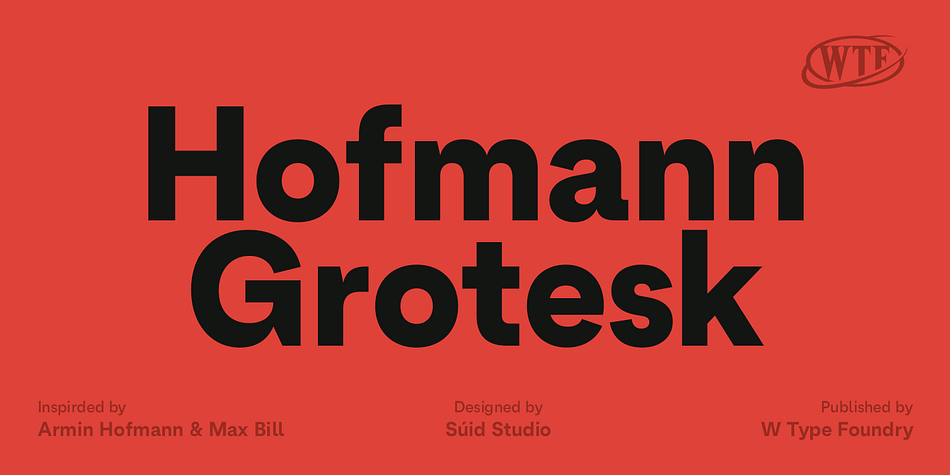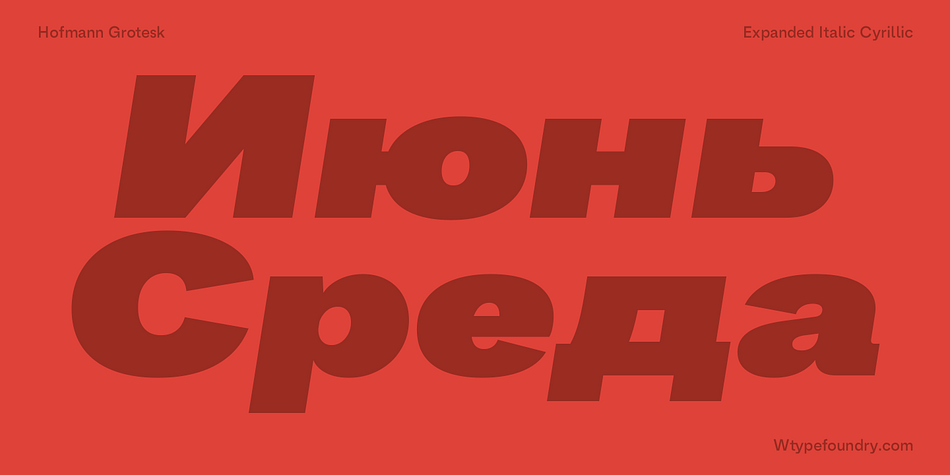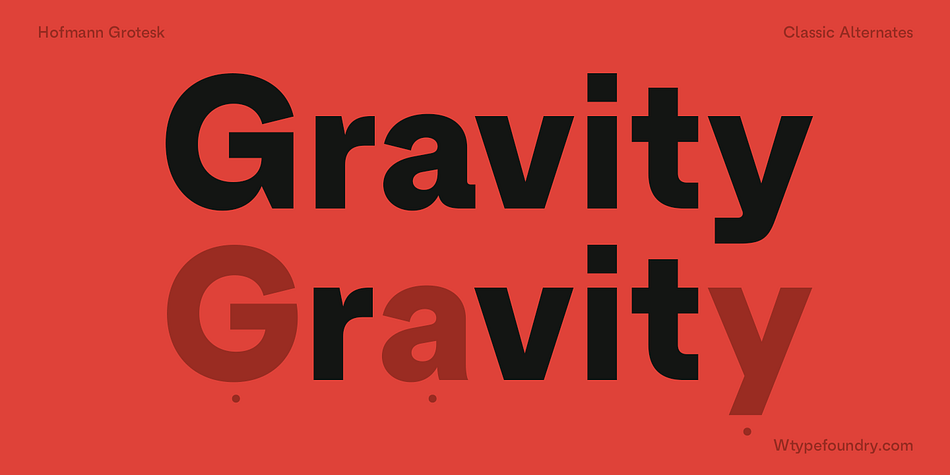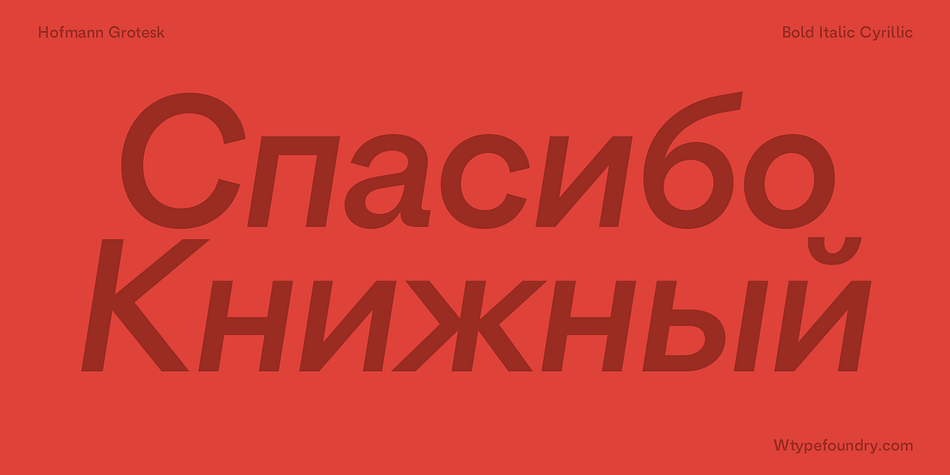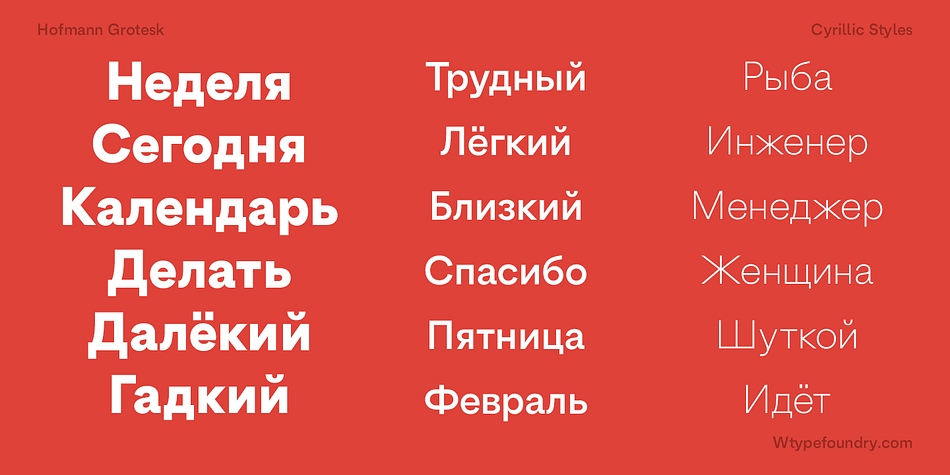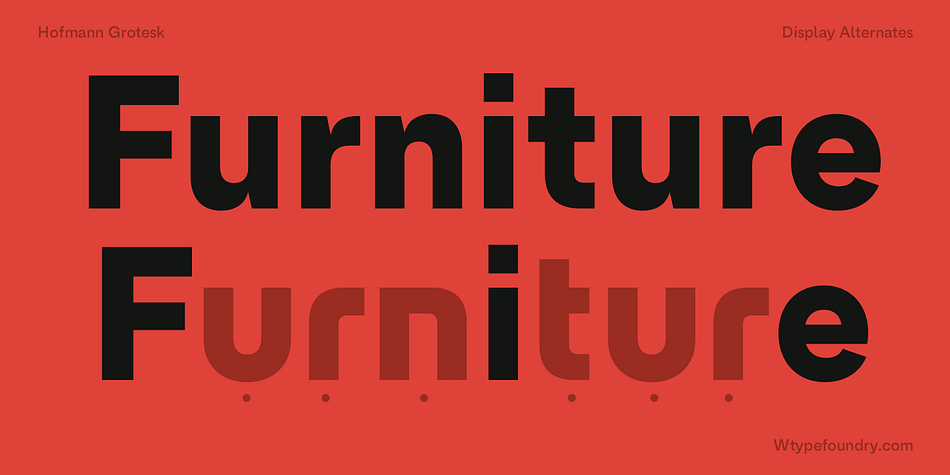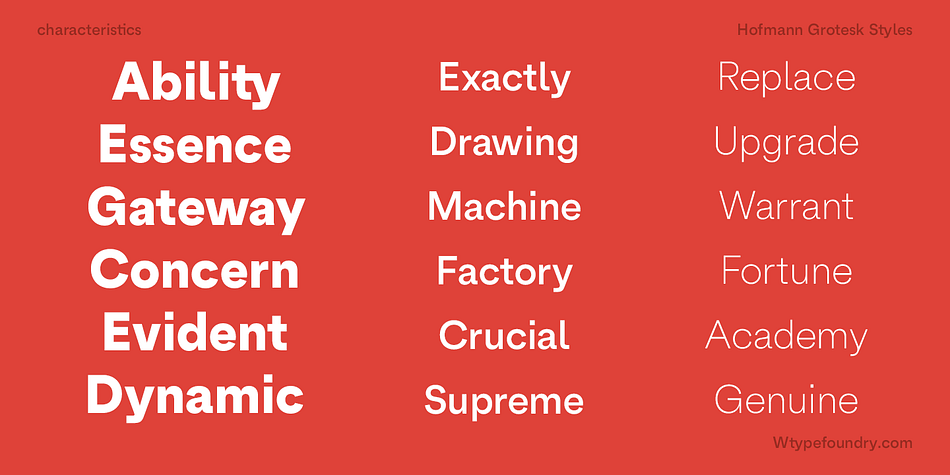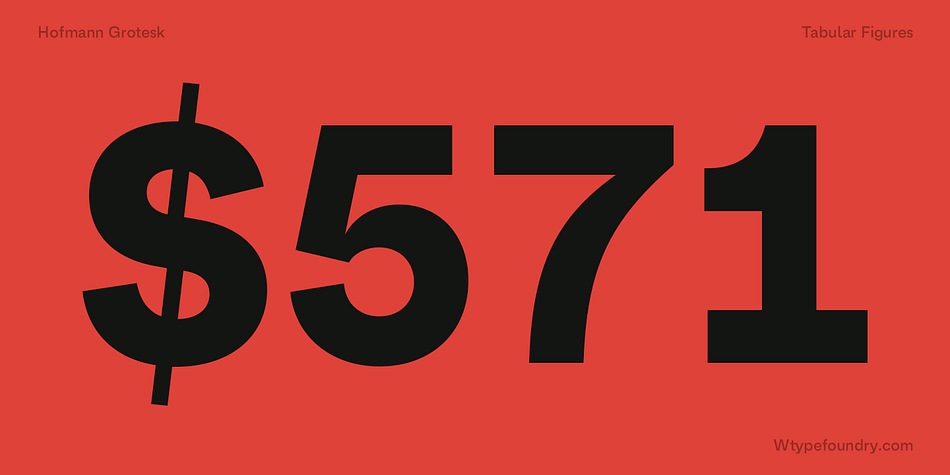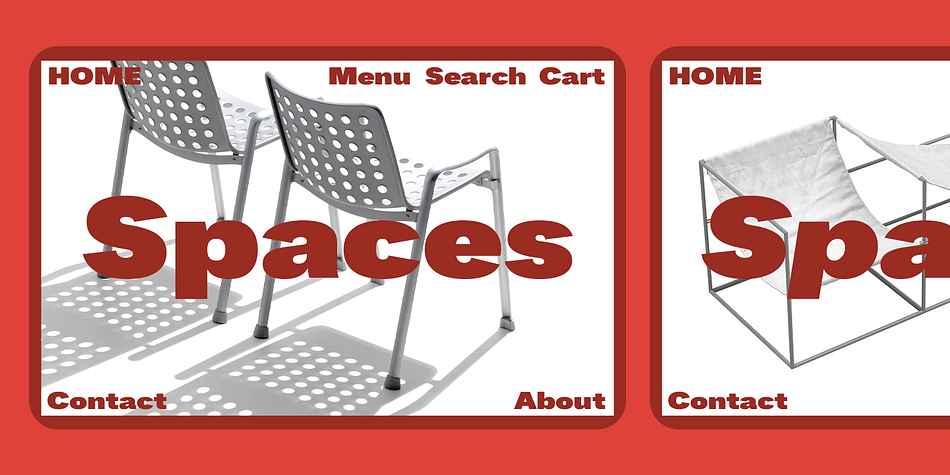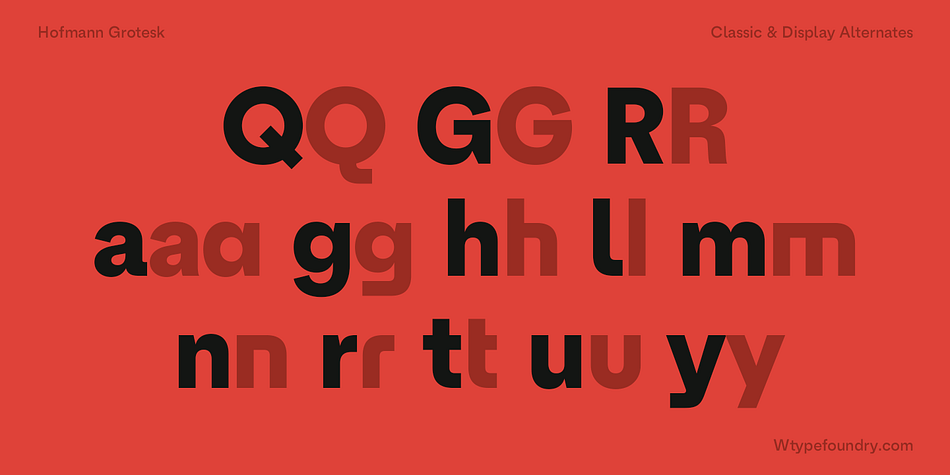
Hofmann Grotesk
Designed by David Súid, Hofmann Grotesk is a sans serif font family. This typeface has twenty styles and was published by W Type Foundry.
Inspired by Swiss designer Armin Hofmann, this font falls into the grotesque style and is built with three alternative styles. The default style, focused on versatility, is especially useful for medium-length texts and articles, as well as for logos and various types of web applications. In its details, it exhibits its own persona. The “display” style (G, Q, a, g, h, m, n, r, t, u) enhances the personality to create very striking compositions and short texts, standing out on their own. In the “classic” alternative set (R, a, l, y), more sober options are grouped, ideal for creating texts of any kind, logos, and other compositions without distractions for users. All these alternatives are good choices to meet any graphic need.
On the other hand, Hofmann Grotesk offers six font options, ranging from the super heavy “Compressed,” through the super heavy “Medium,” to the super heavy “Expanded,” each with its respective italics. This extension is constructed from another angle, focusing much more on the organic form. Its figures and endings are more fluid and built more harmoniously, especially in larger sizes. Although they differ, they do not lose their original essence, thus creating their own personality. This version has 2 alternative sets. The “Organic” set (Q, a, l, y) emphasizes more fluid forms, with a sober and elegant personality, but with natural figures. The second set, “Classic” (G, R, a), blends humanistic forms for a different personality.